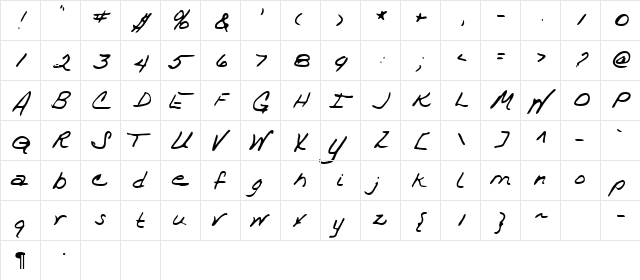
Anne Regular
Design Context for Anne Typeface
Anne takes a measured approach to typography — its balanced proportions and neutral character make it a reliable workhorse for both digital and print work.